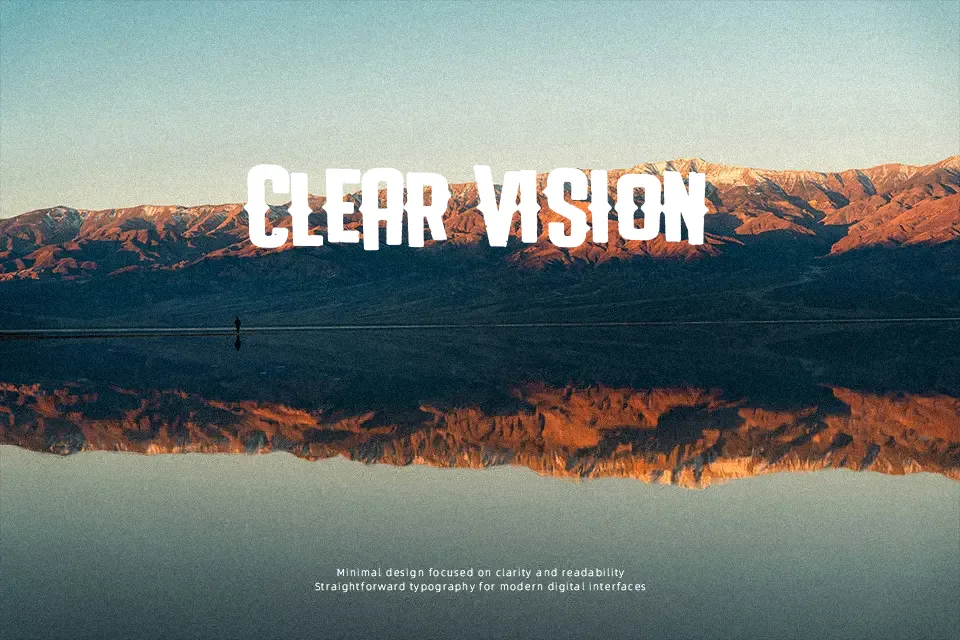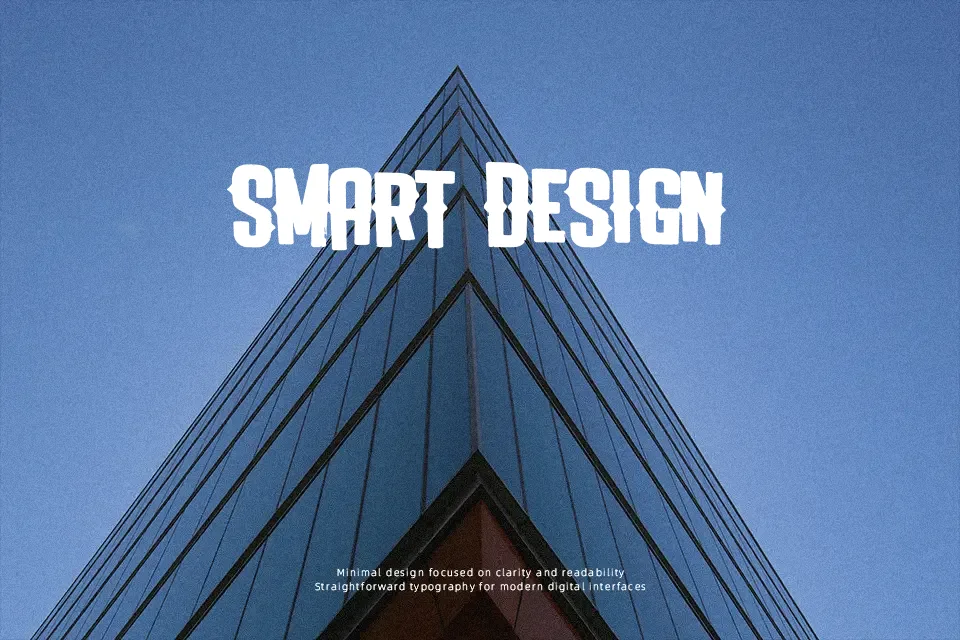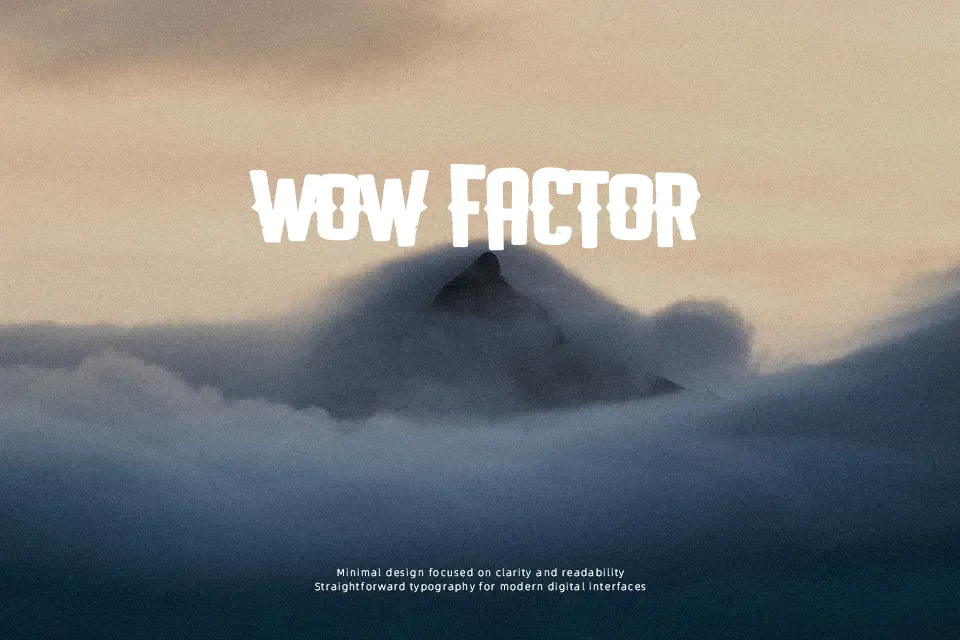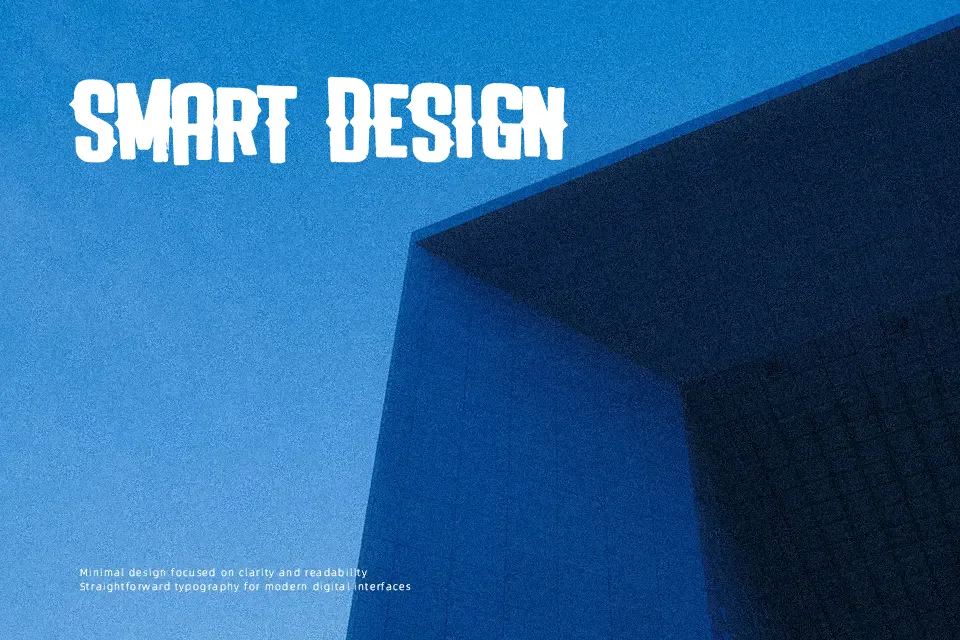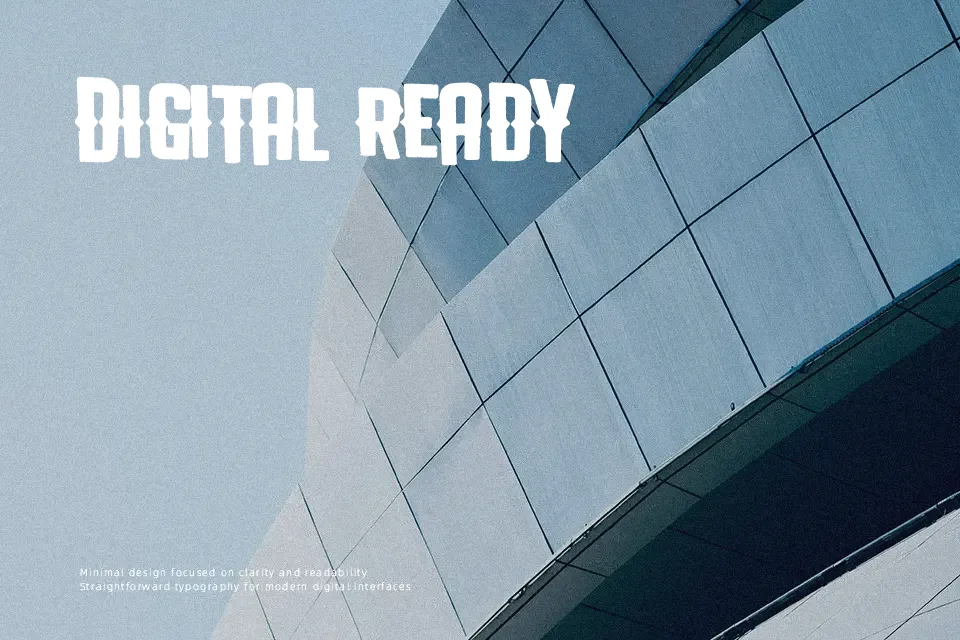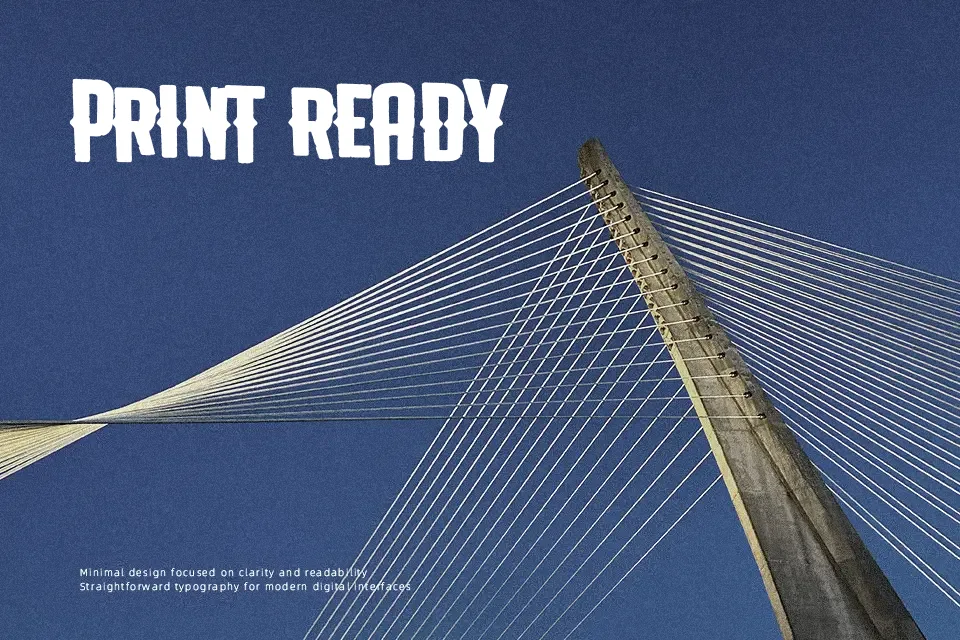
Blink Kiss Font
Designed by Lettersiro Studio
Blink Kiss presents a striking visual footprint through its thick, blocky structure and intentionally uneven, distressed strokes. The hand-painted characteristics give this display typeface a rugged, raw aesthetic that commands attention on the page. Because the letterforms carry significant visual weight, the typography naturally anchors large headers and central focal points. This typeface excels when applied to streetwear fashion labels, dynamic music festival posters, and bold beverage packaging where a slightly chaotic, creative energy is required. However, the heavy texture and aggressive styling heavily restrict its readability at smaller scales. You should avoid applying this font to dense paragraphs, corporate annual reports, or any interface design requiring clean, minimal legibility. Its strength lies entirely in large-scale impact rather than subtle communication.
Streetwear apparel graphics
Large music festival posters
Edgy beverage packaging
Standout logotypes
Dense paragraph text
Corporate professional branding
Small digital interfaces
Perfect for branding, fashion, and headline, with a bold and decorative style.